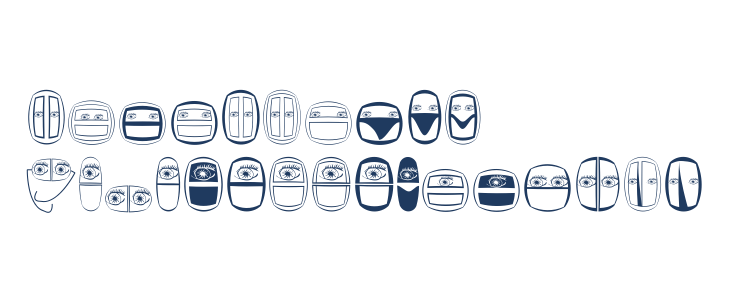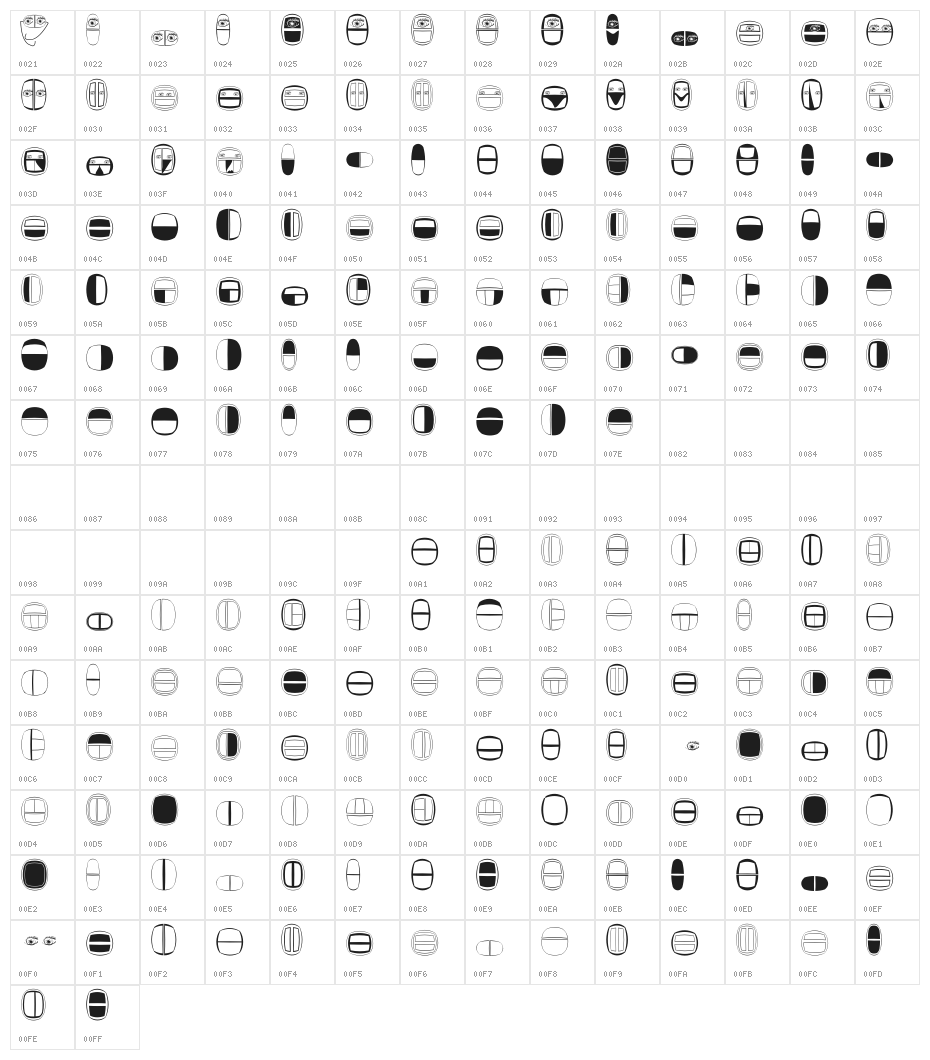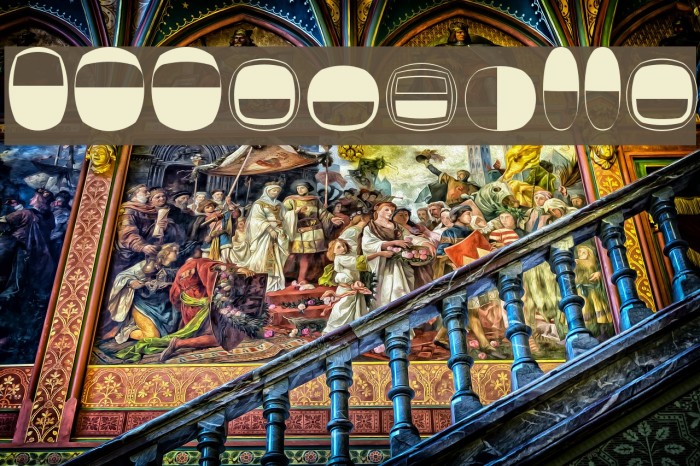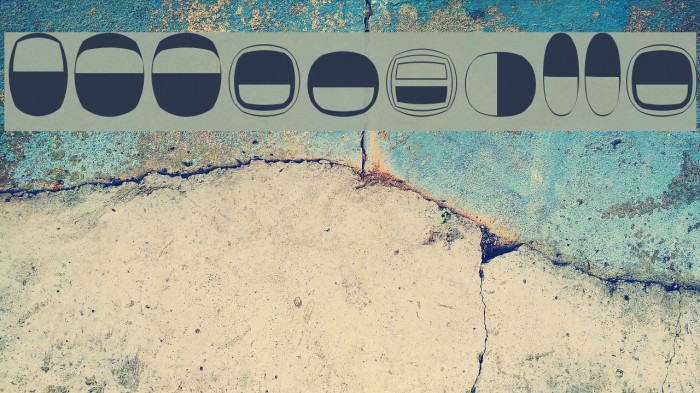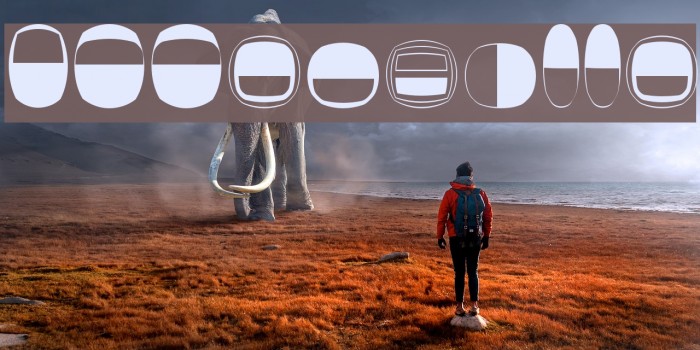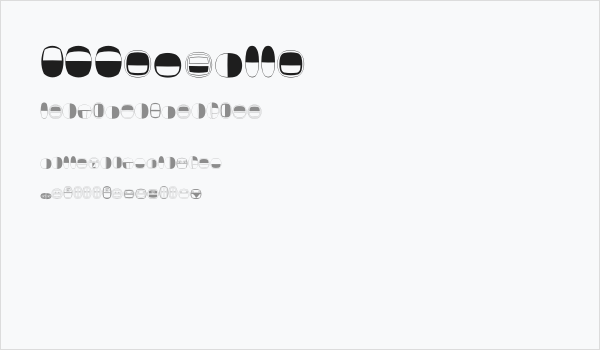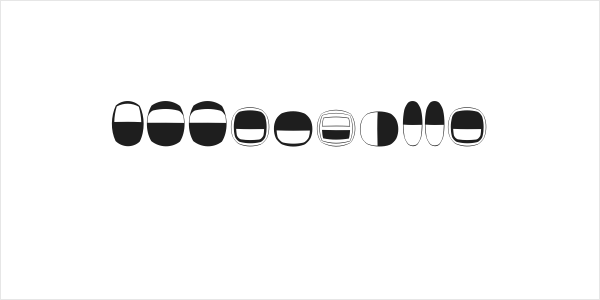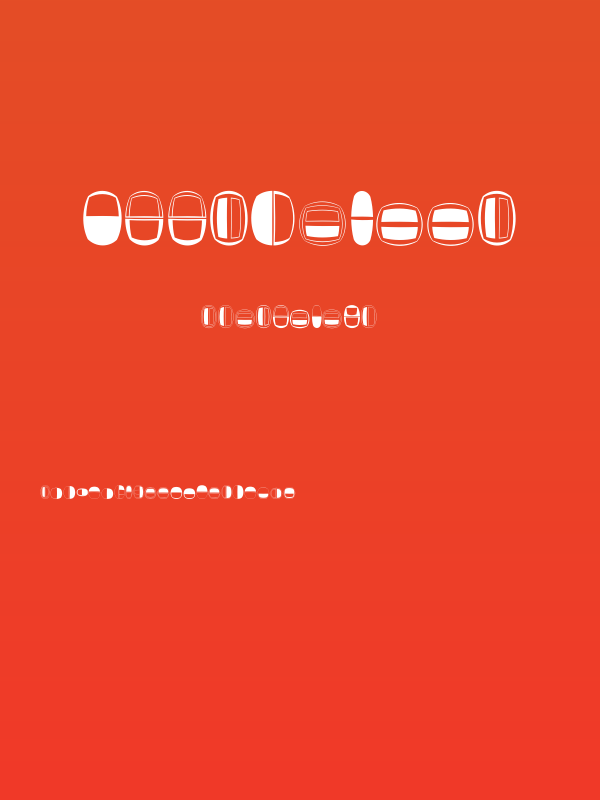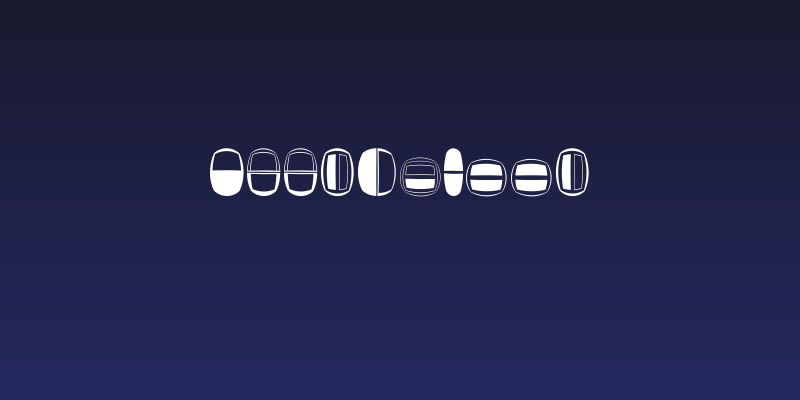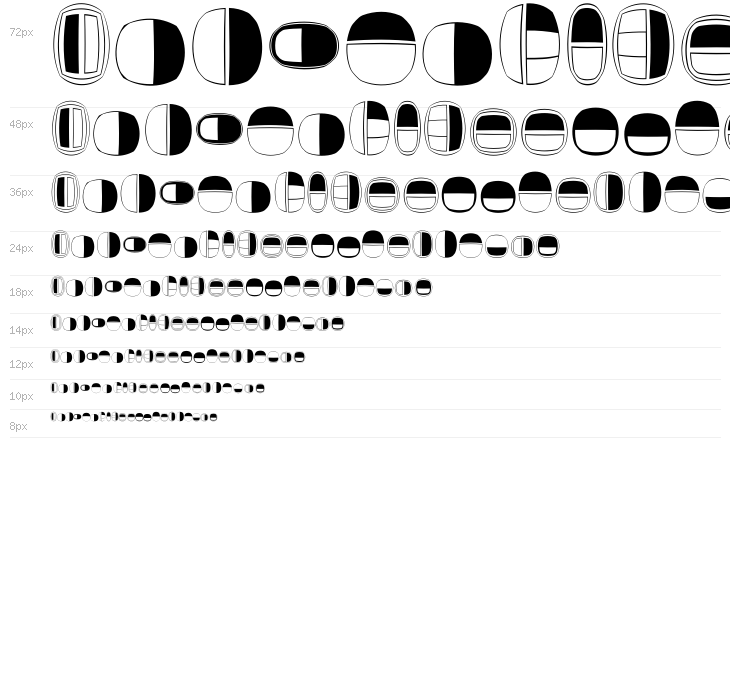
EggsnPills Font
EggsnPills Description
This design features a playful and abstract representation of characters, resembling a series of pill or egg shapes with varying patterns and divisions. Each character is uniquely styled with bold, contrasting black and white sections, creating a visually striking appearance. The design lacks traditional letterforms, instead opting for a more artistic and unconventional approach. The shapes are rounded and smooth, with some incorporating eye-like motifs, adding a whimsical and surreal element. This design is more of an artistic expression rather than a functional typeface, making it suitable for creative and experimental projects.
Overall StyleAbstract, Artistic
Use CaseDecorative elements, Art installations, Experimental design.
Proposed ProjectsIdeal for artistic projects, abstract art pieces, experimental design work, or as a decorative element in creative compositions.